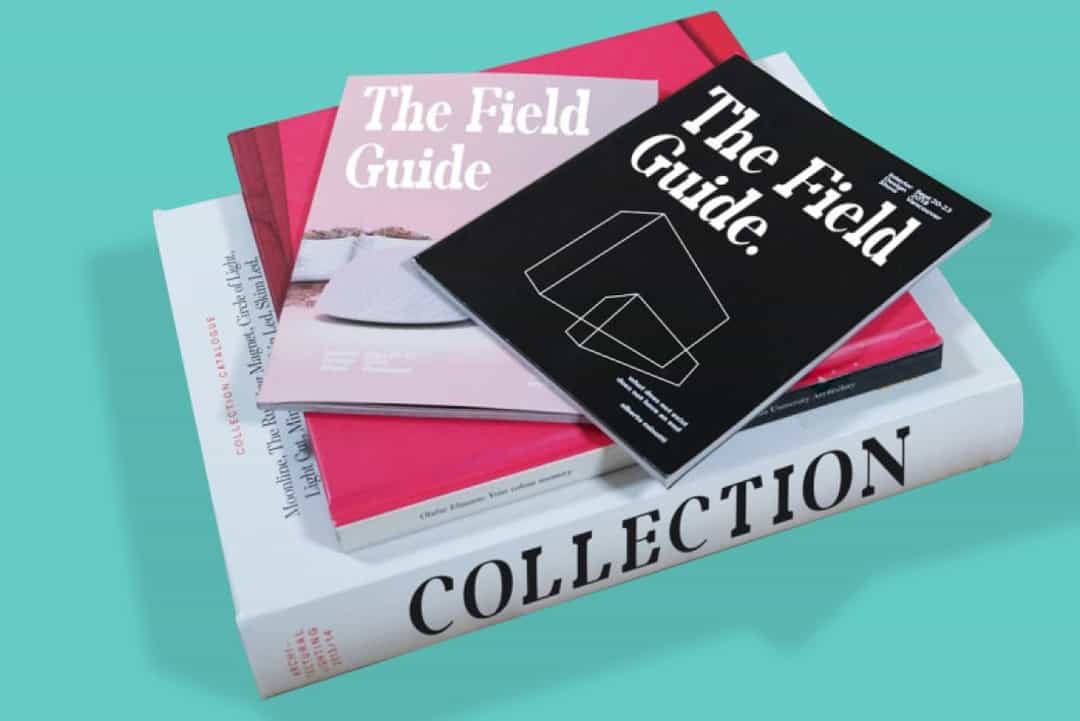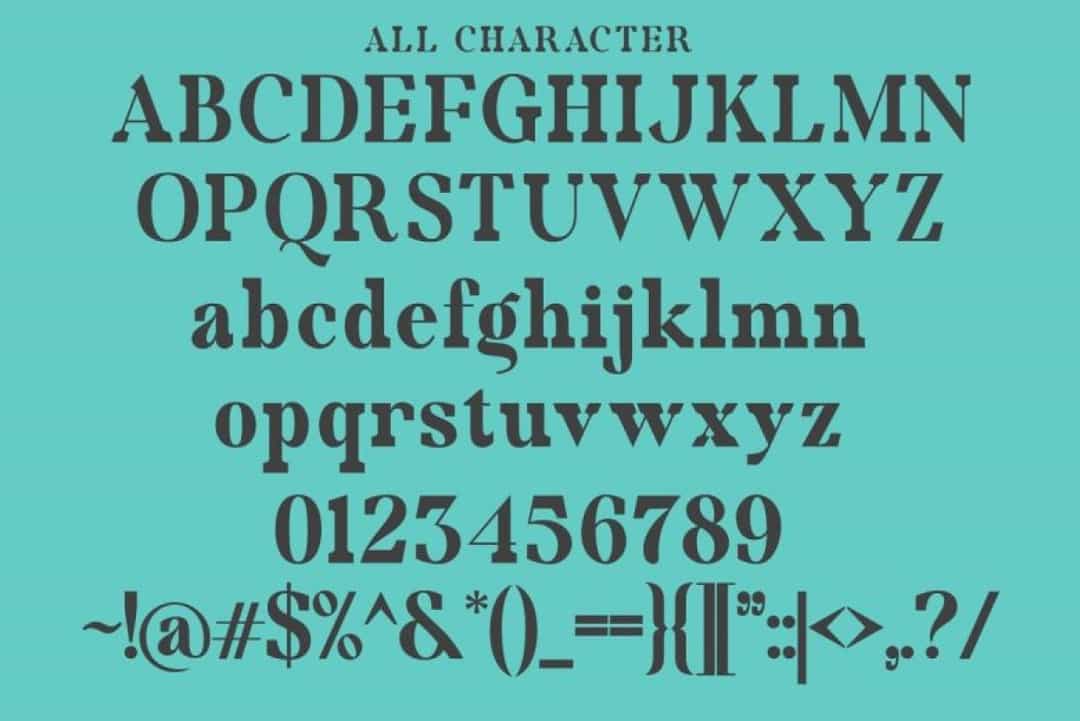
Molgen is an exceptional and versatile contemporary display serif font designed to stand out. Combining classic serifs with contemporary elements of display, Molgen strikes the perfect balance between tradition and innovation when it comes to typography. As such, Molgen provides an entry point into sophistication and modernity.